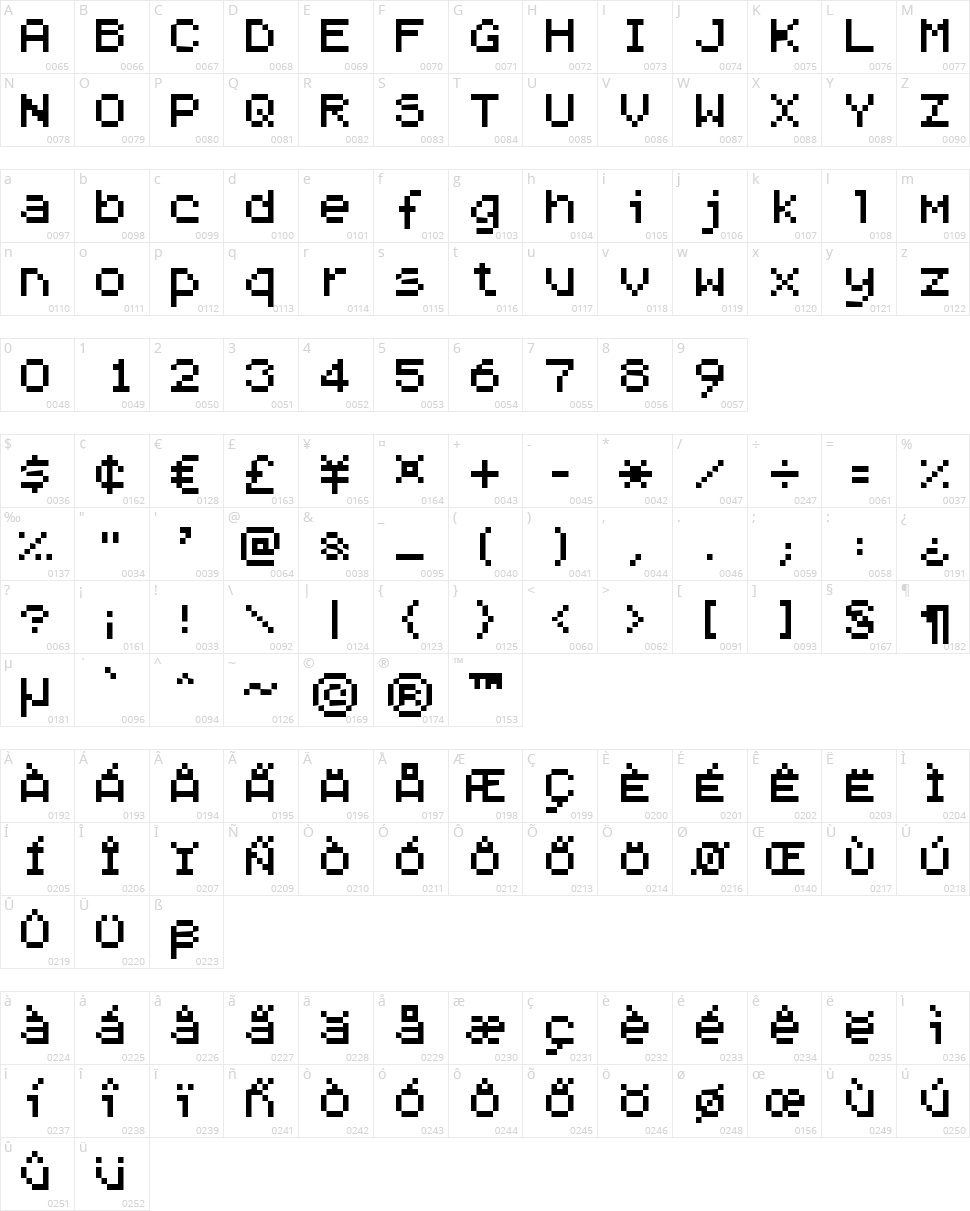
Steelflight
Steelflight by Caveras - based on the original main text font used in
the Shadowrun video game for the SNES (Beam Software/DataEast USA, 1993).
Flash. The font in this archive is a pixel font and best displayed at a
font-size of 8 and multiples of this number.